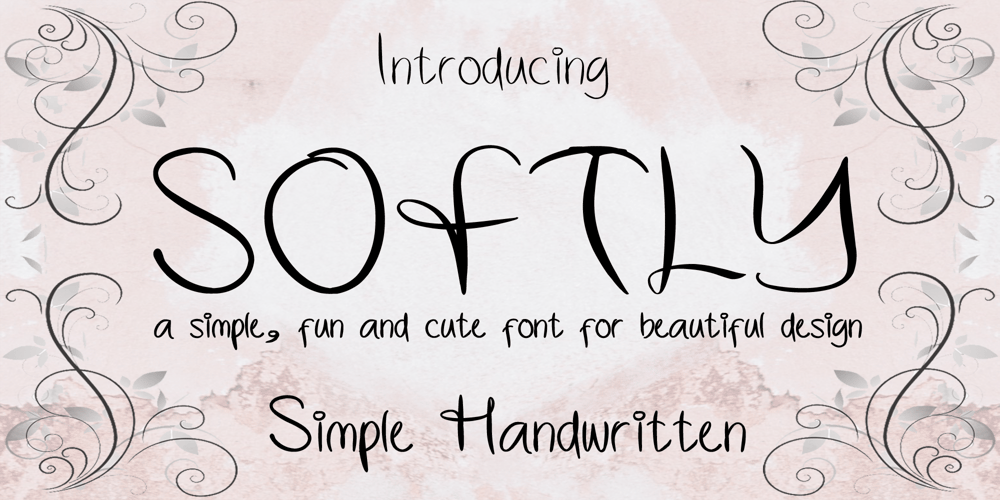
Softly Handwritten Font Family was designed by published by Ayyara Letterindo. Softly Handwritten contains 1 styles and family package options. Softly is a cute, thin-lettered, and quirky serif font. No matter the topic, this font will be an incredible asset to your fonts’ library, as it has the potential to elevate any creation, Wedding card, Invitation card, and is the perfect choice for any children’s activity or school project. Add this lovely font to your creations and take your designs to the next level!